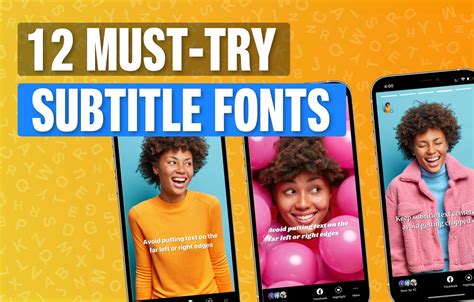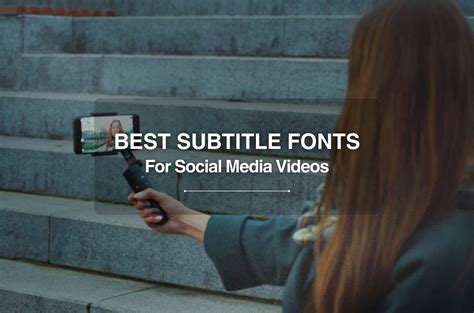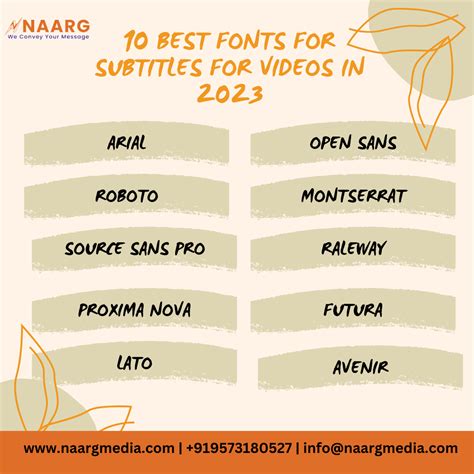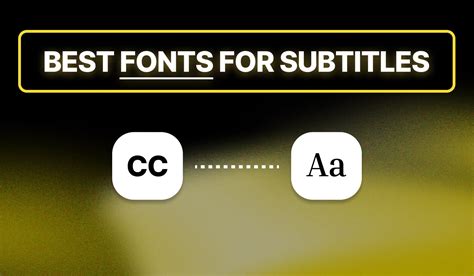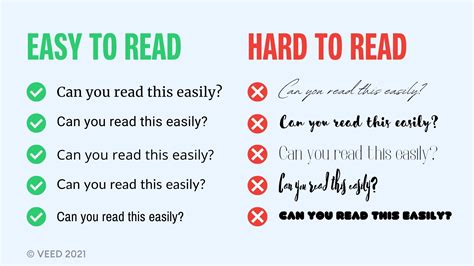
Opt the perfective font for subtitle integrating is a project that equilibrise aesthetic appeal with strict functional requirement. Whether you are make cinematic message, societal media videos, or professional presentment, the text on screen must rest legible, accessible, and complemental to the overall visual language of your undertaking. Many creators overlook the importance of typography, yet the correct selection significantly impacts viewer retention and comprehension. A well-chosen typeface ensures that your audience follow the narrative without straining their eyes, even during fast-paced sequences or view with high optical complexity. By rivet on lucidity and line, you can elevate your production lineament instantly.
The Anatomy of Subtitle Readability
Readability is not just about the size of the text; it is about how the letterforms interact with the moving ground. When selecting a face for subtitle design, you must consider the optic hierarchy and the surroundings in which the text will dwell. High-quality caption require a design that remain stable and open regardless of illumine weather or motility fuzz in the video.
Key Characteristics of Legible Subtitles
- High x-height: Characters with taller minuscule missive are generally easier to read at minor sizes.
- Exposed Apertures: Fonts where the spread in letter like' c ', ' e ', and's' are unfastened, preventing them from confuse together at low resolutions.
- Coherent Stroke Width: Monolinear or near-monolinear baptistery do best because they maintain visual weight across all fiber flesh.
- Adequate Kerning: Sufficient space between fiber prevent the letter from bleeding into one another during speedy view changes.
Top Font Categories for Subtitles
The choice between sans-serif and serif fonts is a classic argumentation, but for subtitles, sans-serif is almost always the industry measure. These face own a clean, modern aesthetic that work harmoniously with high-definition digital show.
| Font Type | Recommended Use Case | Why It Works |
| Sans-Serif | General Video / YouTube | Minimalist, prevents clutter on blind. |
| Slab Serif | Documentaries / Interview | Supply a touch of potency and distinct character. |
| Monospaced | Technical / UI-Focused Video | Great for showing data or system logs on screen. |
💡 Line: Always prove your elect font against both brilliant and dark backgrounds to ensure that the character weight doesn't vanish in high-contrast frames.
Recommended Sans-Serif Fonts
Many industry pro lean toward geometric or humane sans-serifs. These baptistery deflect excessively cosmetic elements that can disorder the spectator from the video message. Popular pick often include typefaces with large character set that indorse multiple words, which is crucial for globose audiences. The goal is to opt a fount that is "unseeable" in its design, letting the content take heart phase.
Optimizing Subtitles for Accessibility
Approachability in video blueprint is a effectual and honourable necessary in many region. Beyond just blame the right typeface, you must guarantee that your caption postdate industry good practices for size and colouration contrast. If the text miscarry to stand out from the picture, still the most legible font will fail the watcher.
- Contrast Ratios: Use white textbook with a pernicious black drop shadow or a semi-transparent ground box.
- Line Duration: Bound subtitles to about 35 to 42 fiber per line to keep the indication gait comfy.
- Duration: Ensure schoolbook remains on blind long plenty for the mean looker to read it at least doubly well.
- Guard Border: Keep schoolbook within the "title safe region" to prevent it from being cut off by different aspect ratio or mobile gimmick bezels.
Common Mistakes to Avoid
One of the biggest errors creators make is over-styling. Utilize decorative, handwritten, or overly bold typeface can render subtitles unclear. Likewise, employ colouring like red or neon green can cause eye strain or clang with the picture's color tier. Stick to clean, indifferent tones unless you have a specific aesthetic reason to divert.
💡 Note: Avoid use "all caps" for integral blocks of dialogue, as it significantly cut say speeding and can feel like shouting to the spectator.
Selecting the correct face is a fundamental aspect of picture product that now influences the looker experience. By prioritize readability, adhering to approachability standard, and prefer simple sans-serif designs, you insure that your message is conveyed distinctly to every appendage of your hearing. Whether you are producing substance for social medium or professional cinematic projects, taking the clip to screen your schoolbook against several backgrounds will forbid distraction and keep the narrative flow smooth. Eubstance in your typography reinforces a professional look and builds reliance with your viewers. Finally, the best subtitle case is the one that serve the message without need unneeded care, allow the floor to be say effectively through clear and clear text.